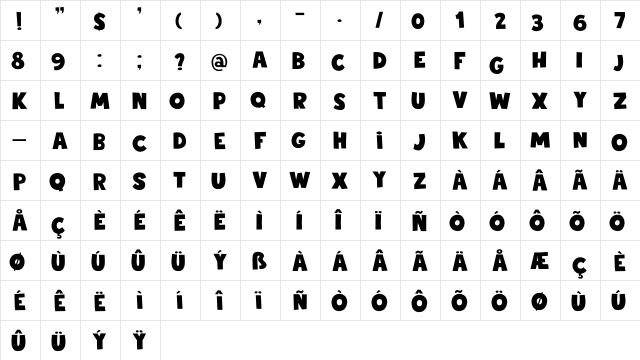
DK Sticky Toffee Regular
Design Context for DK Sticky Toffee Typeface
DK Sticky Toffee is a composed and adaptable typeface that performs quietly and consistently across a wide range of design contexts.